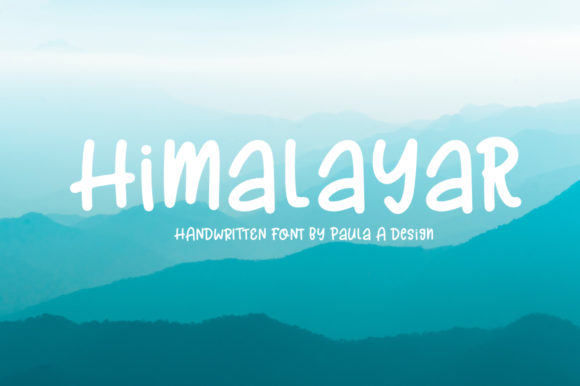
Himalayar Font
Make a bold statement with your next creative endeavor using Himalayar Font, a charmingly handwritten font that radiates a touch of playfulness and personality. Step into the world of creative expression, where every word carries a story and each letter dances with delight. Unleash your imagination and let Himalayar Font be your trusty companion, transforming your projects into visual masterpieces.
With its delightful curves and whimsical strokes, Himalayar Font captures the essence of handwritten notes, adding a personal flair to your designs. As versatile as it is enchanting, this font effortlessly adapts to various project styles, from whimsical invitations to eye-catching social media posts. Let Himalayar Font infuse your creations with a touch of whimsy and a dash of inspiration.
Dive into a world of creativity where your words take center stage, beautifully adorned with the unique charm of Himalayar Font. From heartfelt letters to captivating marketing materials, this font is your gateway to captivating storytelling. Its easy-flowing style invites readers to embark on a visual journey, ensuring your message is not just read, but felt.
Explore the endless possibilities of Himalayar Font and discover a new realm of design aesthetics. Whether you're a seasoned graphic designer or just starting your creative journey, this font will ignite your imagination and unlock new levels of inspiration. Embrace the magic of handwritten charm and let Himalayar Font guide you towards extraordinary creative horizons.